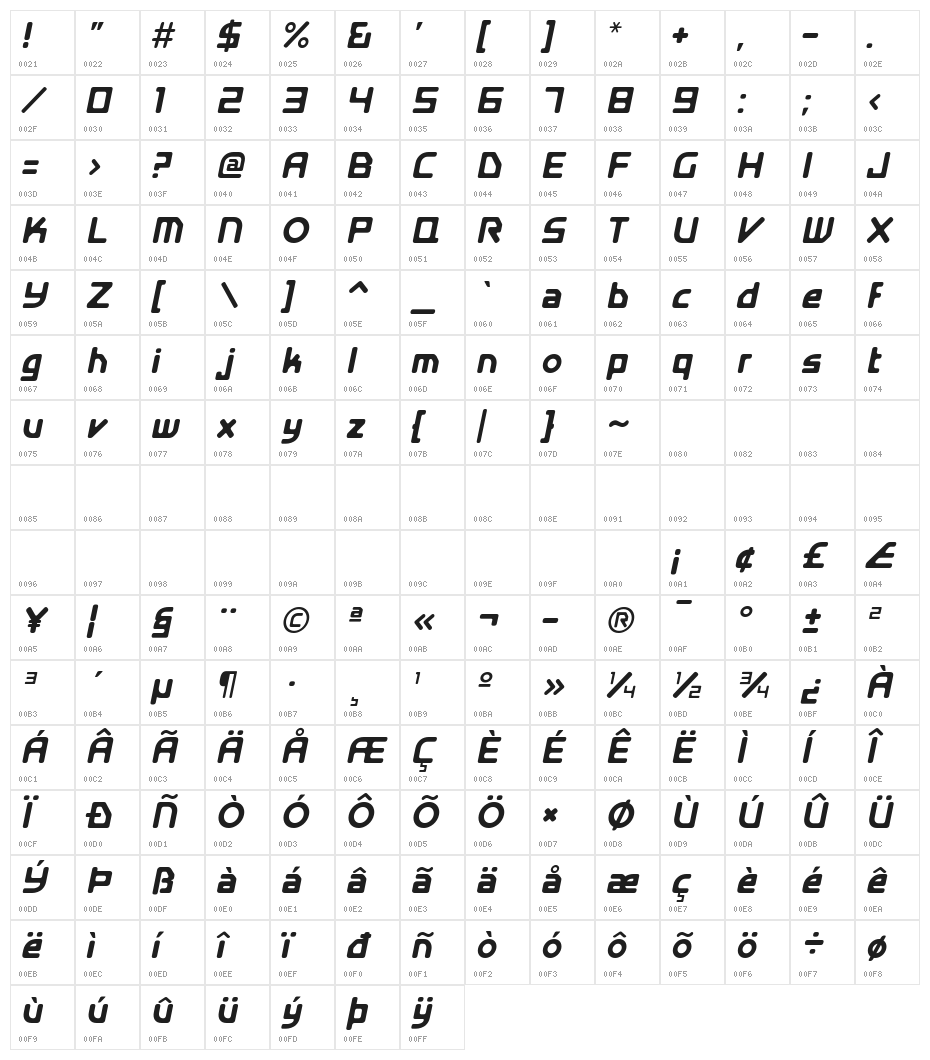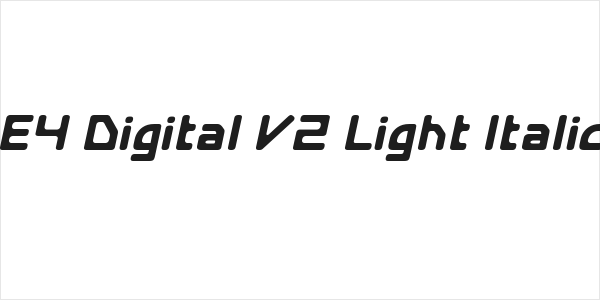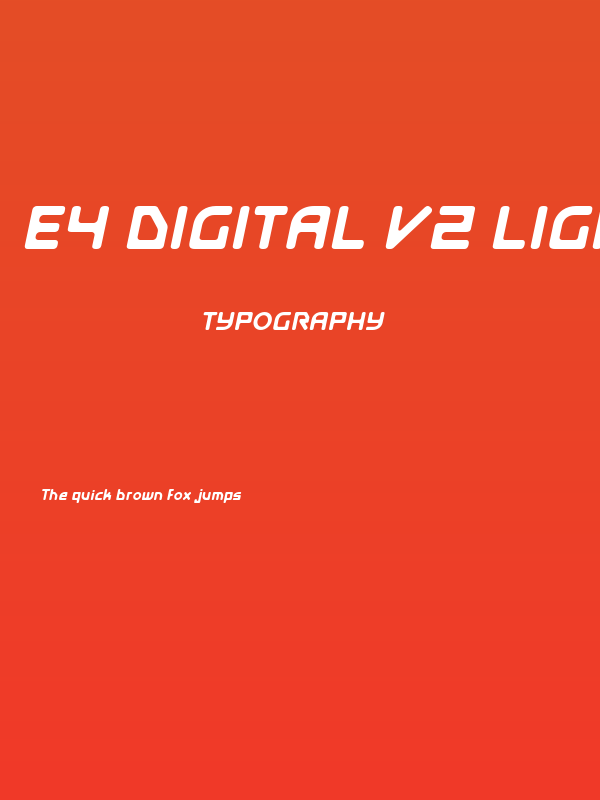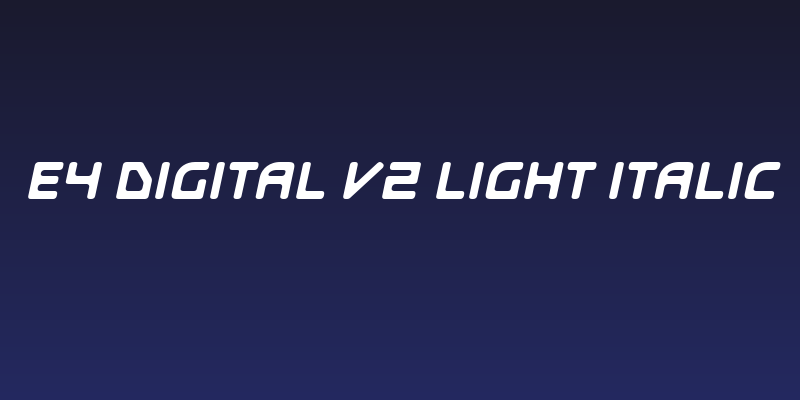
E4 Digital V2 Light Italic Font
E4 Digital V2 Light Italic Description
This font features a sleek, modern design with a digital aesthetic. The characters are slightly italicized, giving them a dynamic and forward-leaning appearance. The strokes are consistent in weight, contributing to a clean and uniform look. The rounded edges and geometric shapes enhance its futuristic feel, making it suitable for technology-related projects. The numbers and special characters maintain the same stylistic approach, ensuring a cohesive appearance across all text elements.
| Proposed Projects | Ideal for tech branding, digital interfaces, futuristic posters, and video game design. |